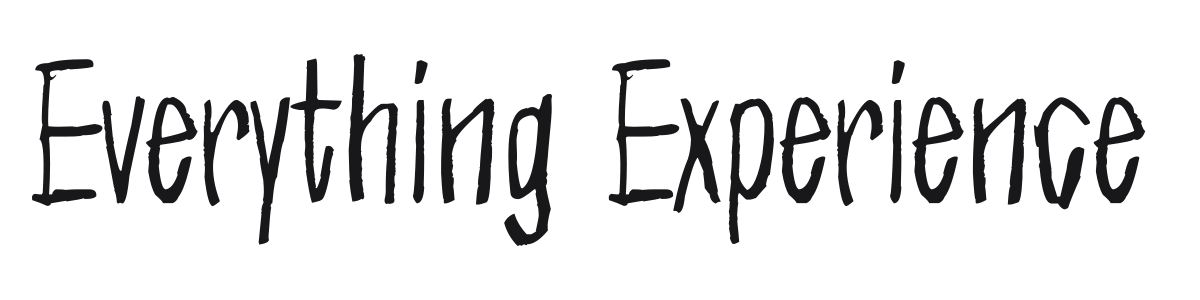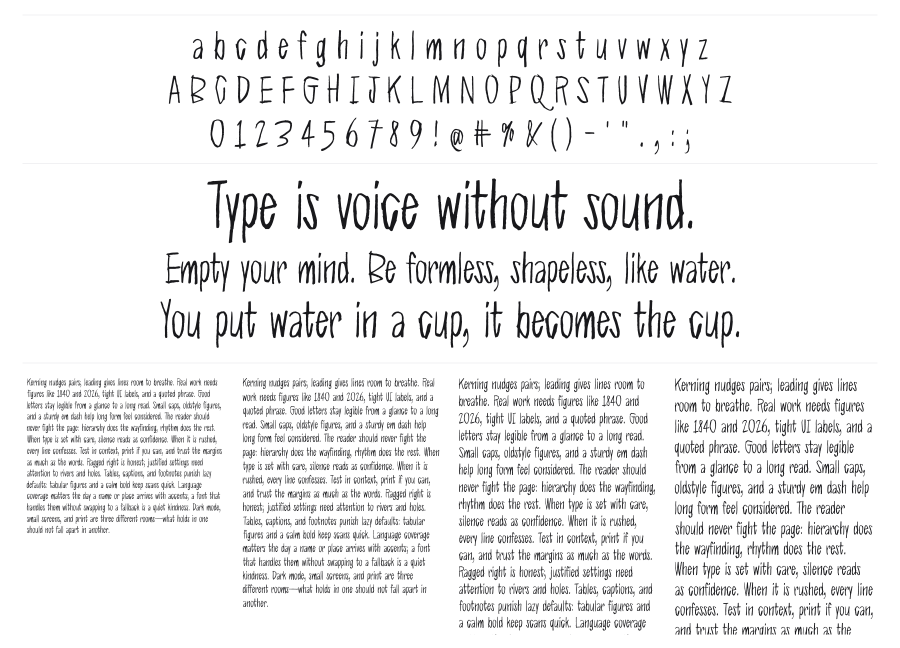
Everything Experience
Everything Experience is a casual upright handwritten font with a natural, pen-drawn texture and gently irregular strokes. The tall, slightly condensed characters carry just enough roughness to feel authentic without looking sloppy. It suits informal branding, editorial headers, and packaging that needs a personal, human touch.